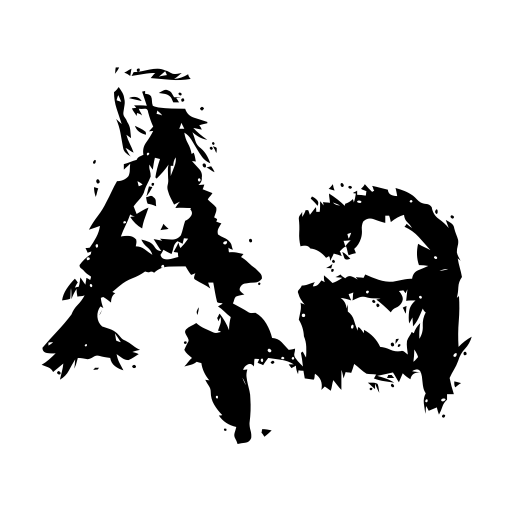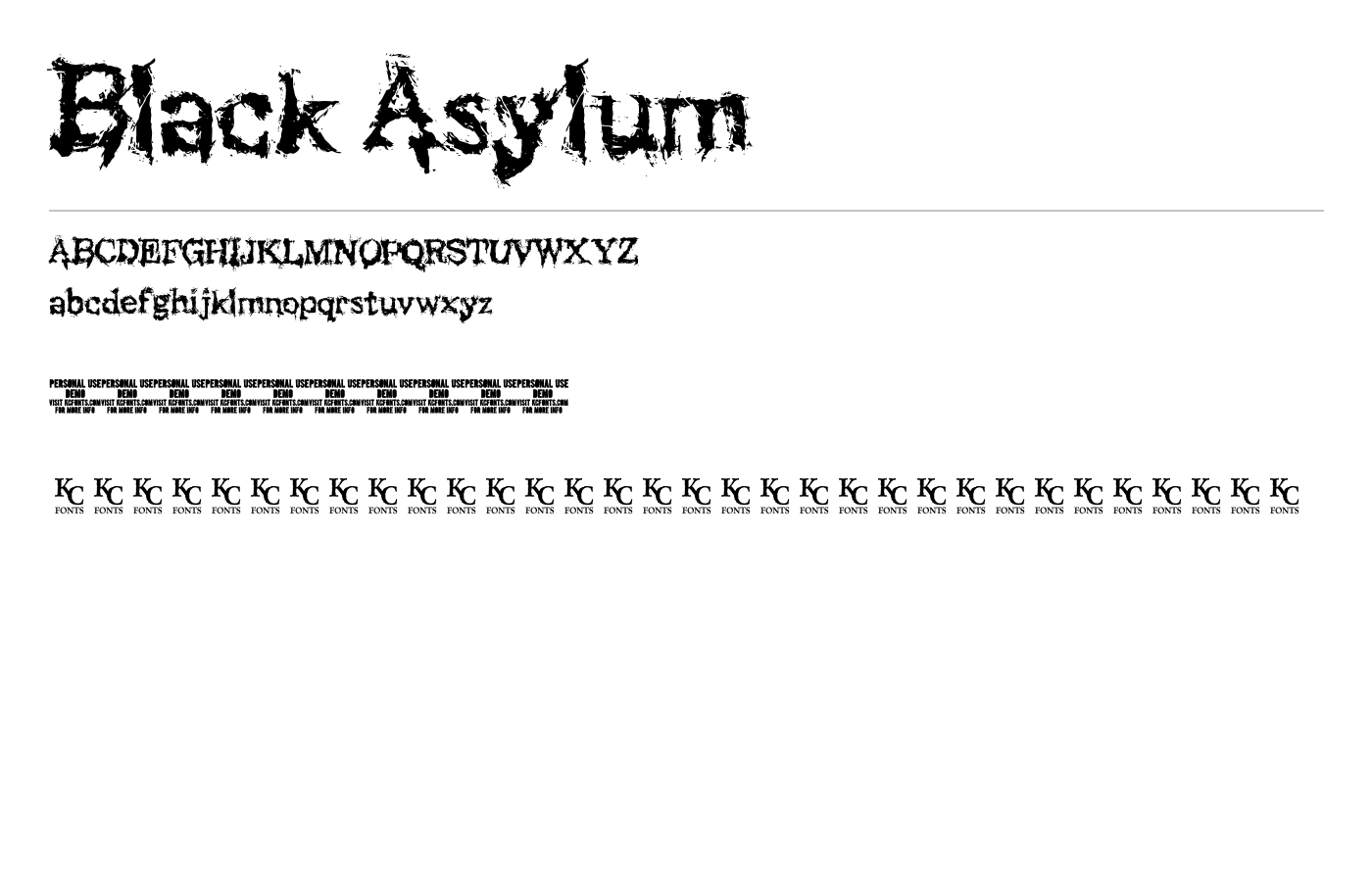
Black Asylum is a distressed, grunge-style display font with a rough, fragmented texture that creates a dark and eerie atmosphere. Its irregular, jagged letterforms and high contrast between thick and thin strokes make it ideal for horror-themed designs, edgy posters, and striking headlines that demand attention. This font works best in creative projects where a sense of chaos, decay, or mystery is desired, lending a bold and unsettling personality to branding or editorial use.
| Font family | Black Asylum Font |
| Designer | Kevin Christopher |